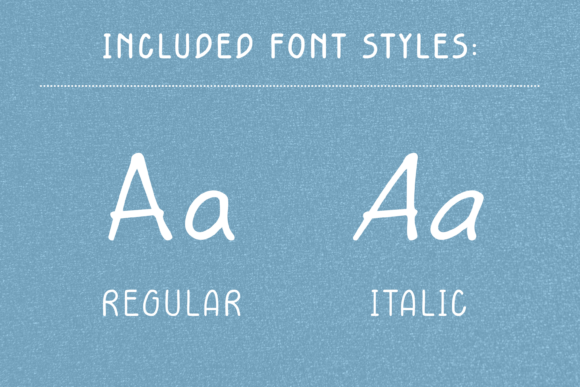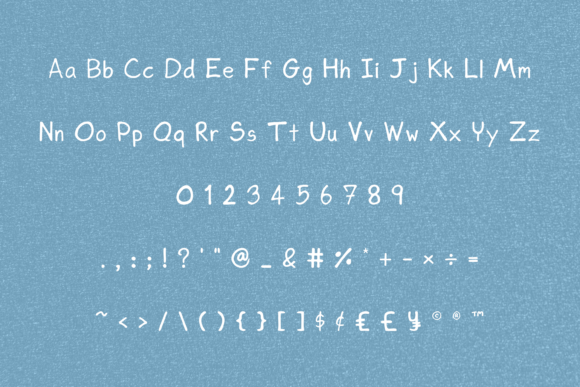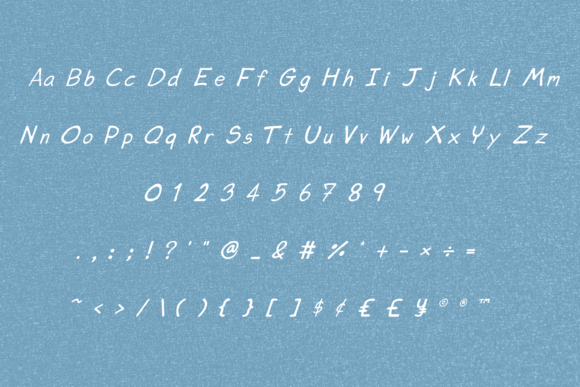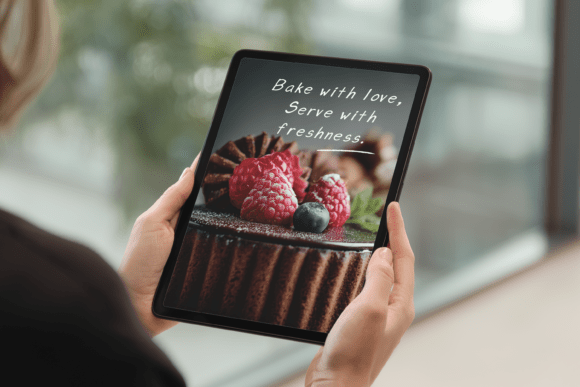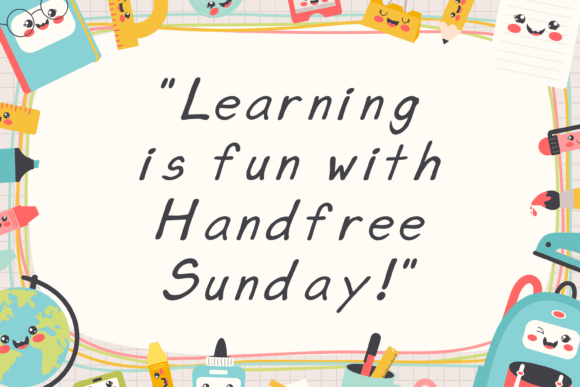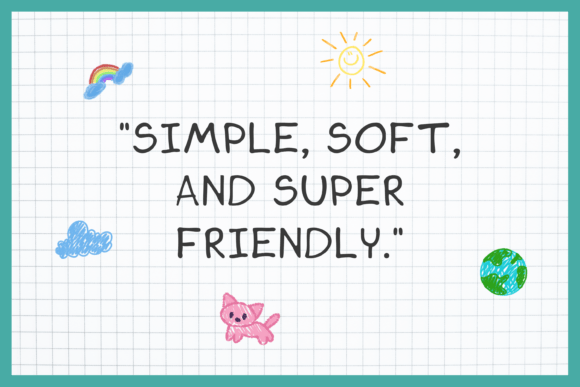
✨ HandfreeSunday – A Whimsical Handwritten Font for Creative Souls!
Are you a digital creative, crafter, or small business owner looking to add a playful, handwritten charm to your designs? Look no further than HandfreeSunday, a cute and clean font that’s perfect for bringing a friendly, approachable vibe to your projects. In this article, we’ll dive into the world of HandfreeSunday and explore its features, benefits, and uses.
What is HandfreeSunday?
HandfreeSunday is a whimsical handwritten font designed to bring a touch of personality to your designs. With its clean lines, playful curves, and friendly feel, this font is perfect for creatives who want to add a human touch to their work. Whether you’re designing for digital or print, HandfreeSunday is a versatile font that can be used in a variety of applications.
Key Features of HandfreeSunday
• Whimsical Handwritten Style: HandfreeSunday features a playful, handwritten style that’s perfect for adding a personal touch to your designs.
• Clean and Legible: Despite its playful nature, HandfreeSunday is clean and legible, making it easy to read and understand.
• Versatile: This font can be used in a variety of applications, from digital designs to print materials.
Perfect Use Cases for HandfreeSunday
So, what can you use HandfreeSunday for? The possibilities are endless! Here are some perfect use cases for this charming font:
• Branding & Logos: Add a personal touch to your brand’s identity with HandfreeSunday. This font is perfect for creating unique and memorable logos that stand out from the crowd.
• Digital Planners: Create engaging and interactive digital planners with HandfreeSunday. This font is perfect for adding a friendly and approachable vibe to your designs.
• Printable Quotes: Add a touch of inspiration to your printable quotes with HandfreeSunday. This font is perfect for creating uplifting and motivational content.
• DIY Crafts & Cards: HandfreeSunday is perfect for crafters who want to add a personal touch to their DIY projects. Use this font to create unique and thoughtful cards, gift tags, and other paper crafts.
• Social Media Content: Stand out on social media with HandfreeSunday. This font is perfect for creating engaging and shareable content that resonates with your audience.
• Classroom and Educational Projects: HandfreeSunday is a great font for educators who want to add a playful touch to their classroom materials. Use this font to create engaging and interactive lesson plans, worksheets, and other educational resources.
Why Choose HandfreeSunday?
So, why should you choose HandfreeSunday for your design projects? Here are just a few reasons:
• Unique and Memorable: HandfreeSunday is a unique and memorable font that will help your designs stand out from the crowd.
• Easy to Read and Understand: Despite its playful nature, HandfreeSunday is clean and legible, making it easy to read and understand.
• Versatile and Compatible: This font is compatible with a range of design tools and can be used in a variety of applications.
• Perfect for Creatives: HandfreeSunday is designed specifically with creatives in mind. Whether you’re a digital designer, crafter, or small business owner, this font is perfect for adding a personal touch to your work.
Font Name Handfree Sunday Font
In conclusion, HandfreeSunday is a whimsical handwritten font that’s perfect for creatives who want to add a playful, handwritten charm to their designs. With its clean lines, playful curves, and friendly feel, this font is perfect for a range of applications, from branding and logos to digital planners and printable quotes. Whether you’re a digital designer, crafter, or small business owner, HandfreeSunday is a great choice for adding a personal touch to your work.